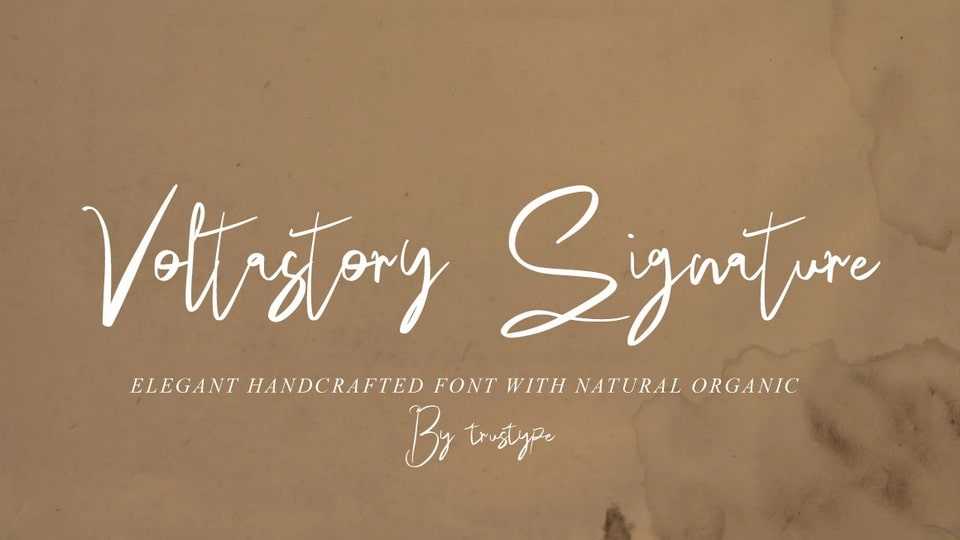
Download Voltastrory Signature font, a hand-drawn typeface with a natural organic, decorative characters and a dancing baseline!
Designer: Muhammad Al Muchlis